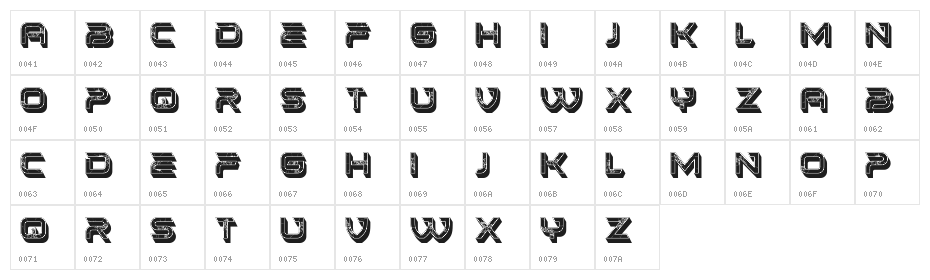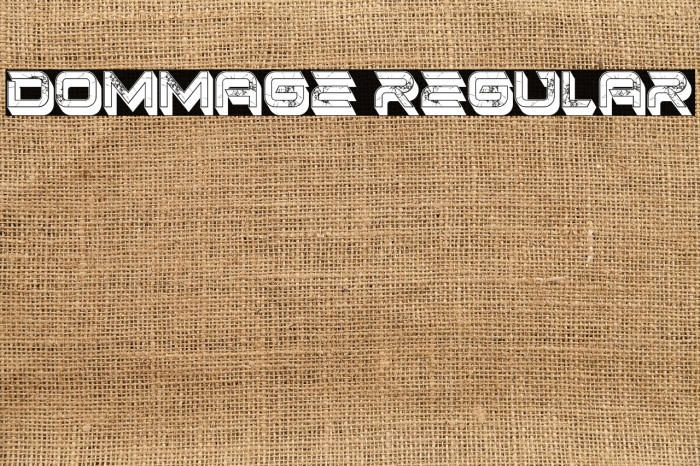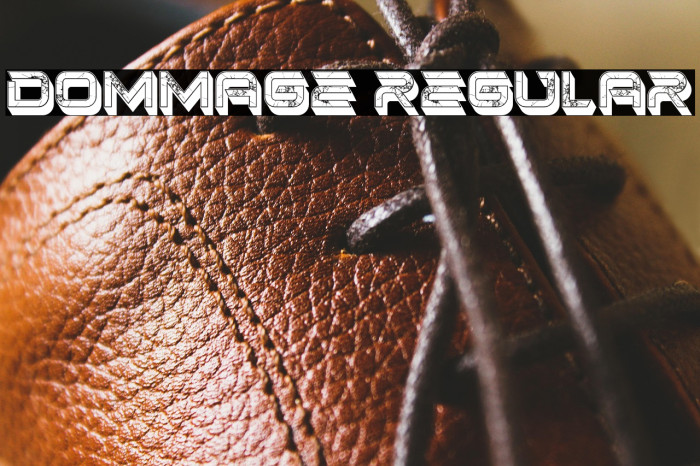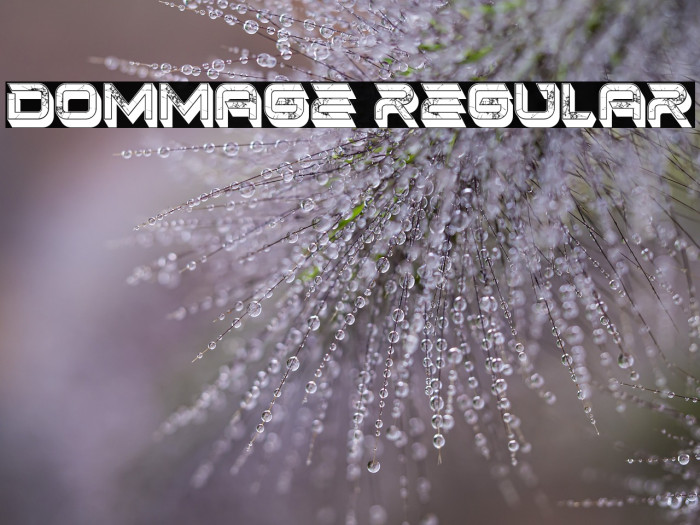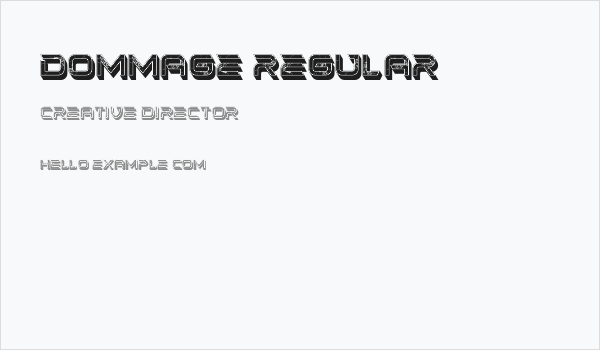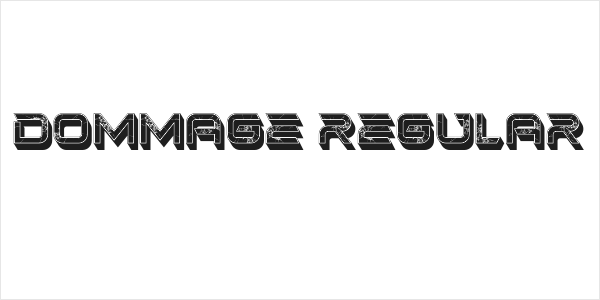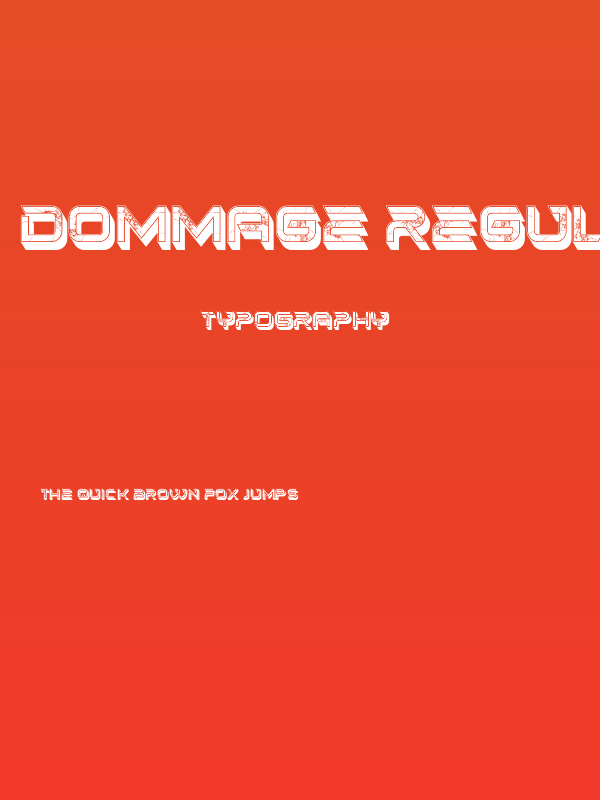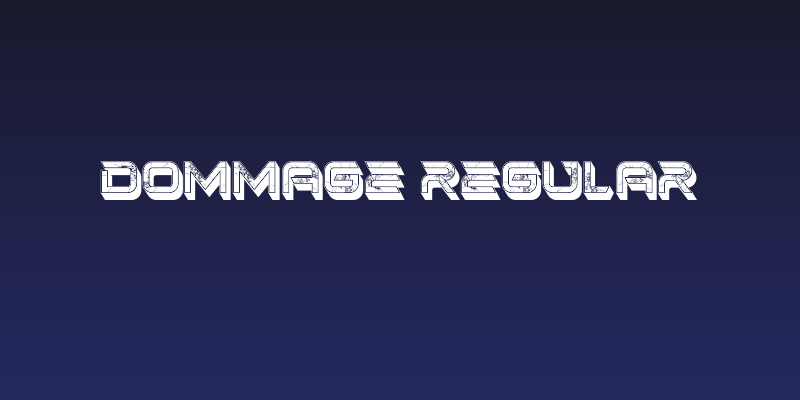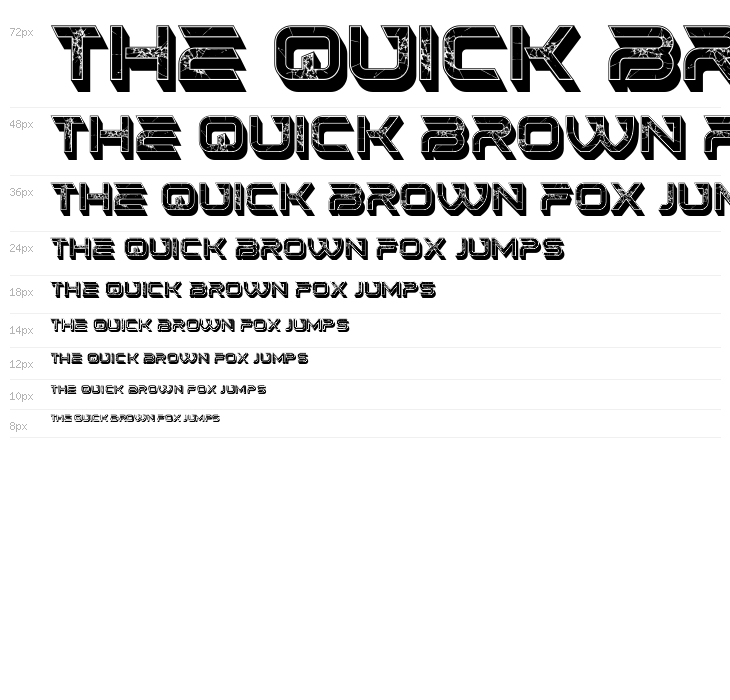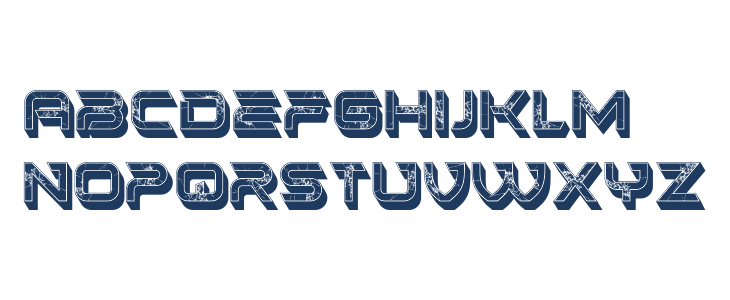
Dommage Regular Font
Dommage Regular Description
This font features a bold, futuristic design with a distinct three-dimensional effect. The characters are constructed with a solid, block-like appearance, incorporating intricate geometric patterns within each letterform. The angular edges and sharp lines give it a dynamic and modern feel, while the internal detailing adds depth and complexity. The uppercase letters are particularly striking, making a strong visual impact. This font is ideal for projects that require a bold statement and a contemporary aesthetic.
| Proposed Projects | Ideal for sci-fi themed designs, video game titles, technology branding, and modern posters. |